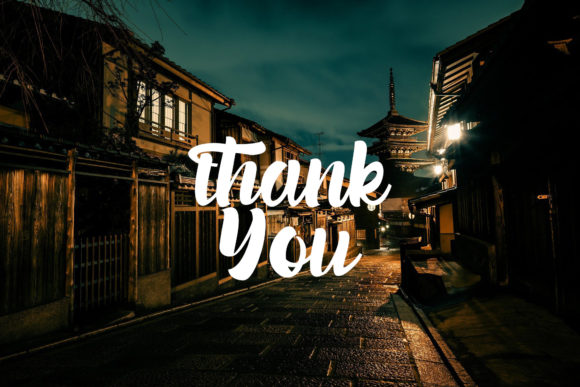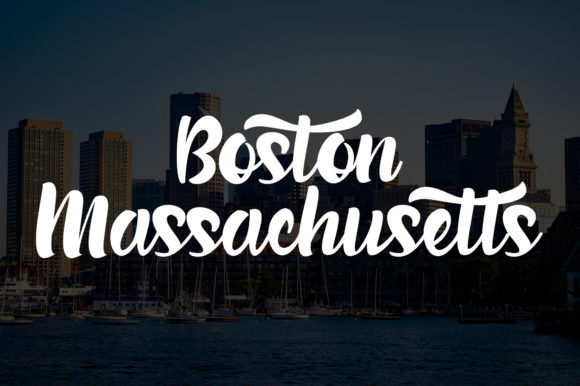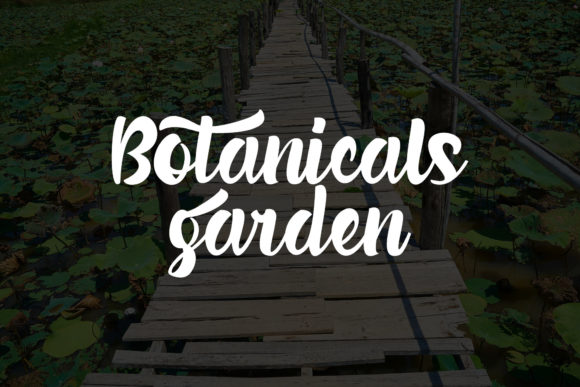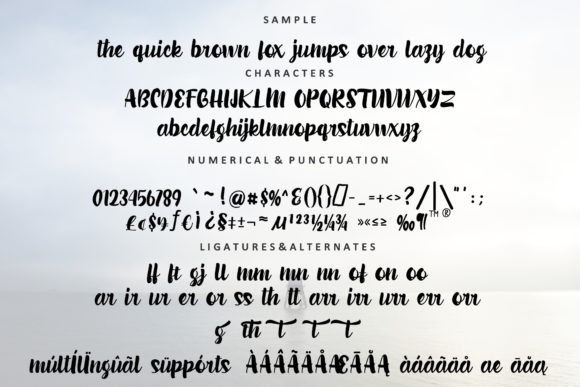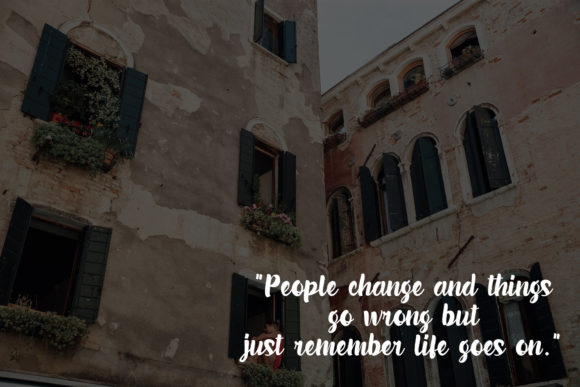
Introduction to Northallerton Font
As designers, we’ve all been there – staring at a blank page, trying to conjure up the perfect font to bring our creative project to life. It’s in these moments of inspiration and frustration that we search for the perfect design resource to elevate our work. And that’s exactly where the Northallerton Font comes in – a lovely yet bold script font that exudes elegance and class, perfect for adding a touch of sophistication to any design.
Whether you’re working on a high-quality brochure, a website, or a social media campaign, the Northallerton Font is a valuable addition to your design arsenal. Its beautiful and refreshing look makes it a great choice for designers who want to stand out from the crowd and leave a lasting impression on their audience.
Key Features of Northallerton Font
- High-quality design resource ideal for creative projects, offering a sophisticated and elegant look.
- Northallerton Font is available in a single weight, making it easy to use in a variety of creative contexts.
- Northallerton Font is a versatile design resource, suitable for use in logos, branding, and other creative projects requiring a touch of sophistication.
Honest Review: Northallerton Font
As a designer, I’m always on the lookout for high-quality design resources to elevate my creative projects. The Northallerton Font is one such resource that caught my attention. Here’s my honest review of this font.
- Modern and stylish design
However, there are a few limitations to consider: ⚠️ The font is only available in a few weights, which may limit its use in certain creative projects. Additionally, the font may not be as versatile as some other design resources on the market.
Overall, I’m impressed with the Northallerton Font. It’s a great resource for designers who want a high-quality, modern font for their creative projects. While it may have a few limitations, it’s definitely worth checking out for any designer looking for a free design resource.
To get the most out of Northallerton Font, experiment with different font sizes and styles to find the look that works best for your design. You can also use the font in combination with other design elements to create a unique and eye-catching design.
Northallerton Font is commonly used in creative projects that require a high-quality, modern font. It’s ideal for use in logos, business cards, and other design elements where a clean and professional look is desired.